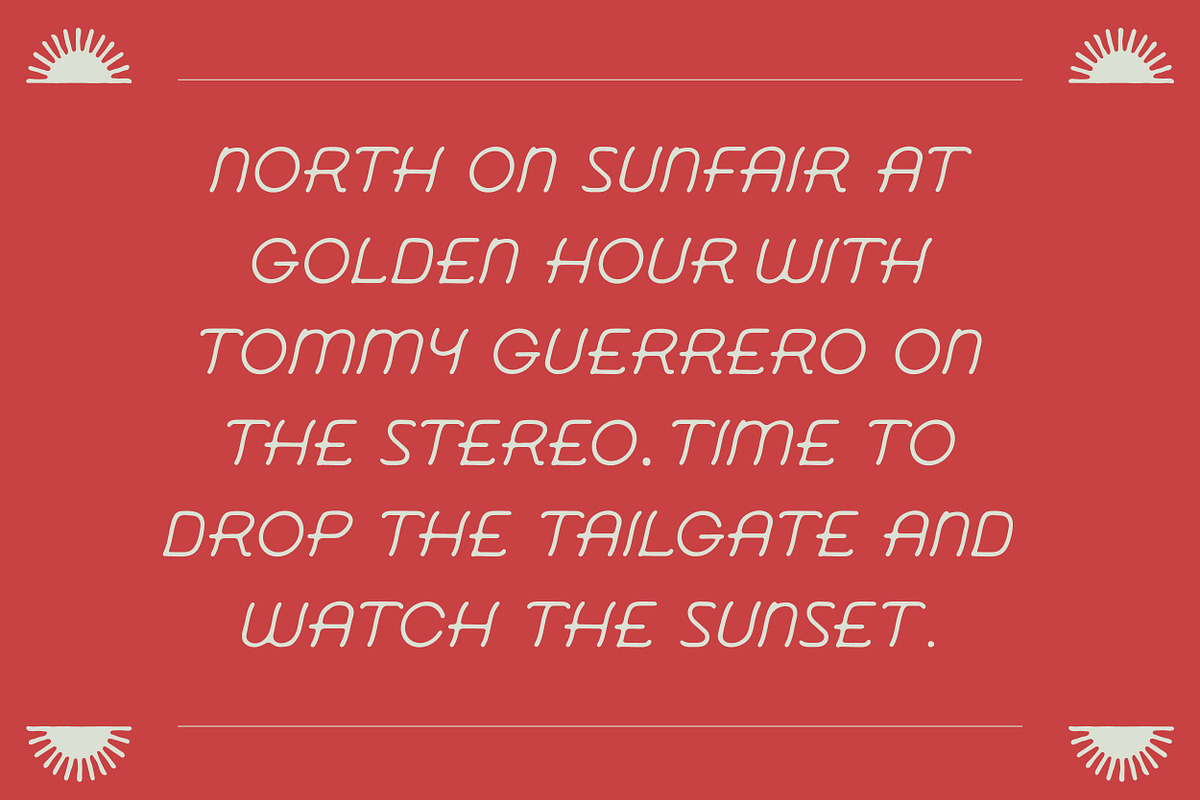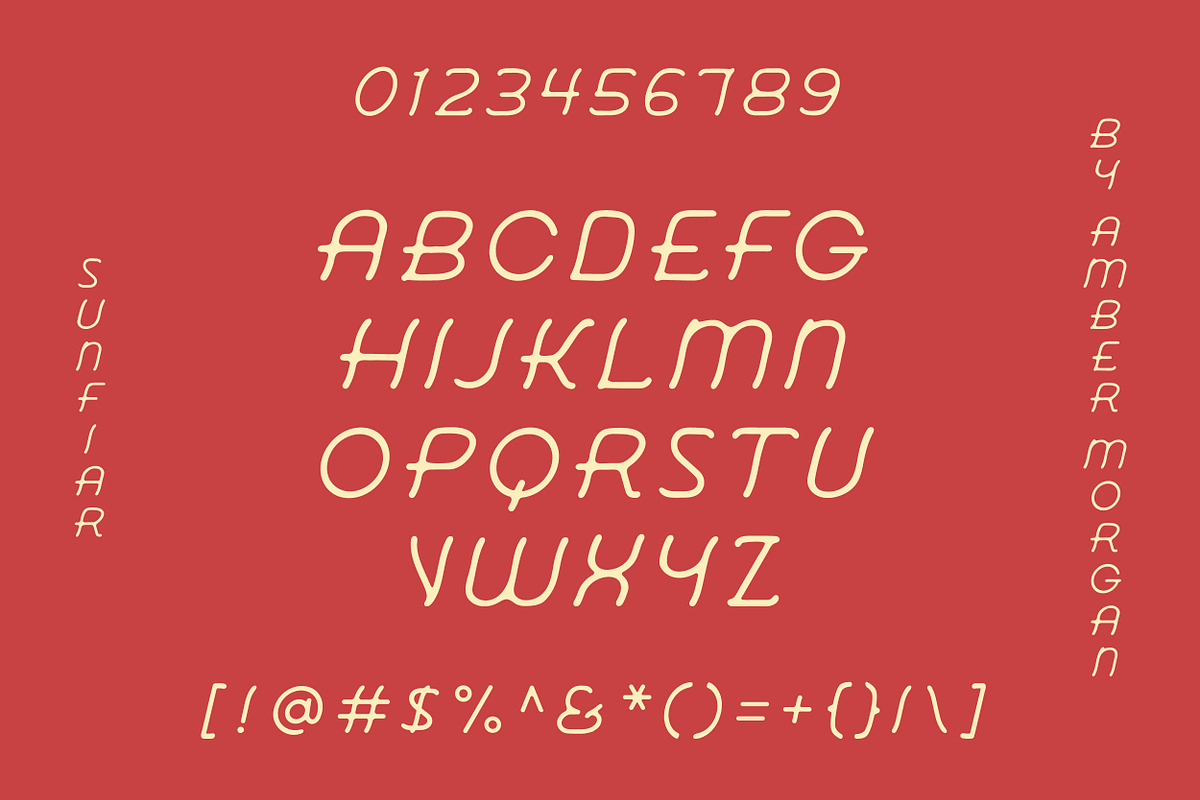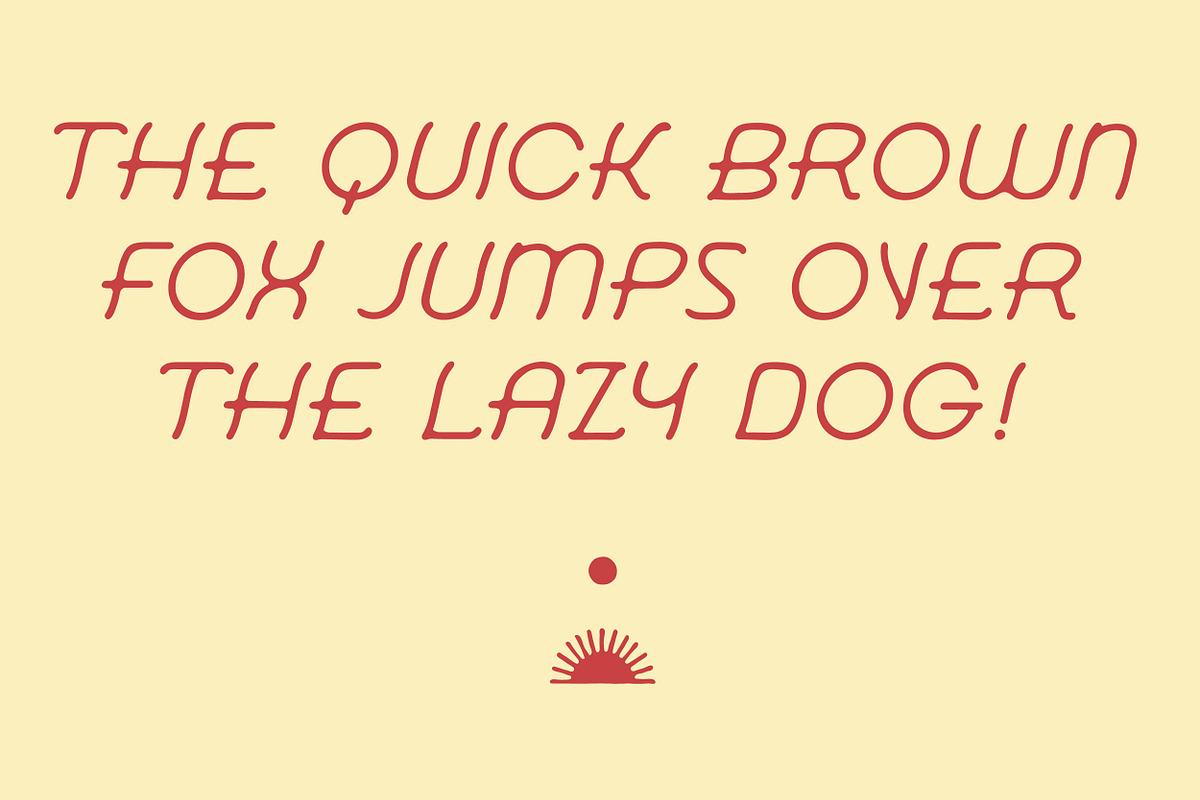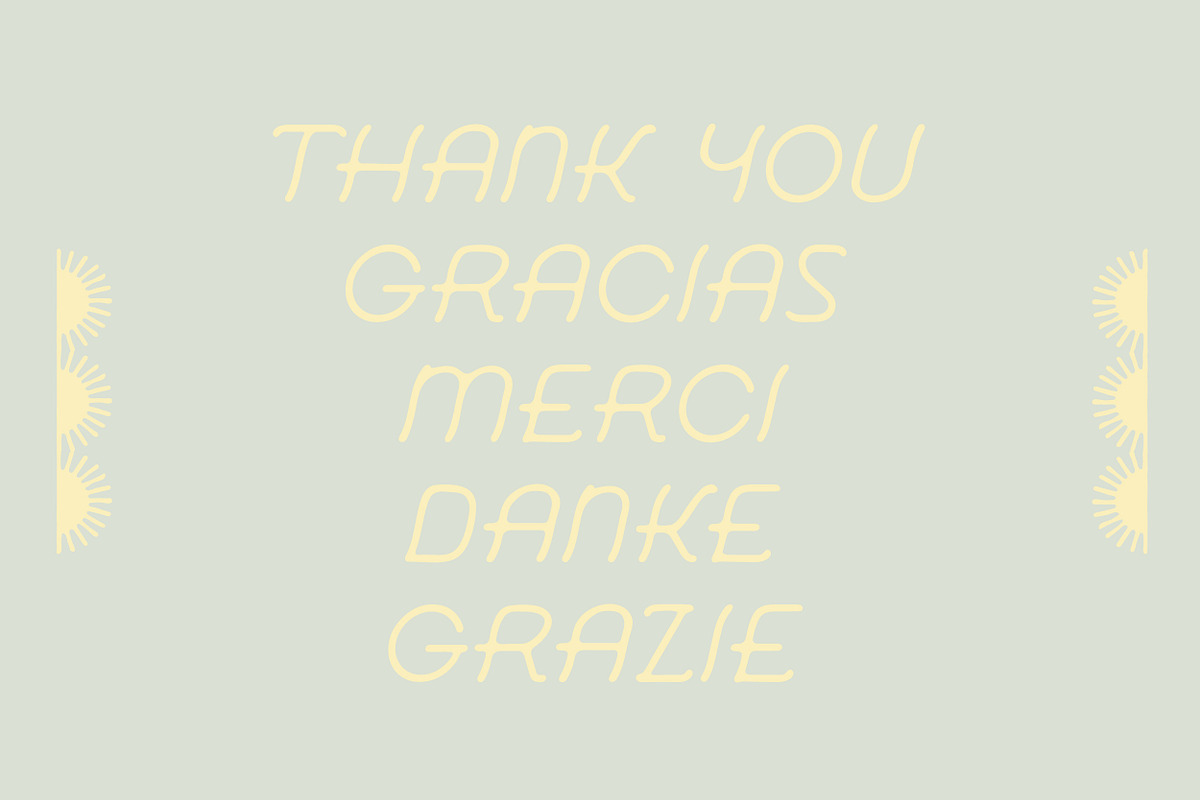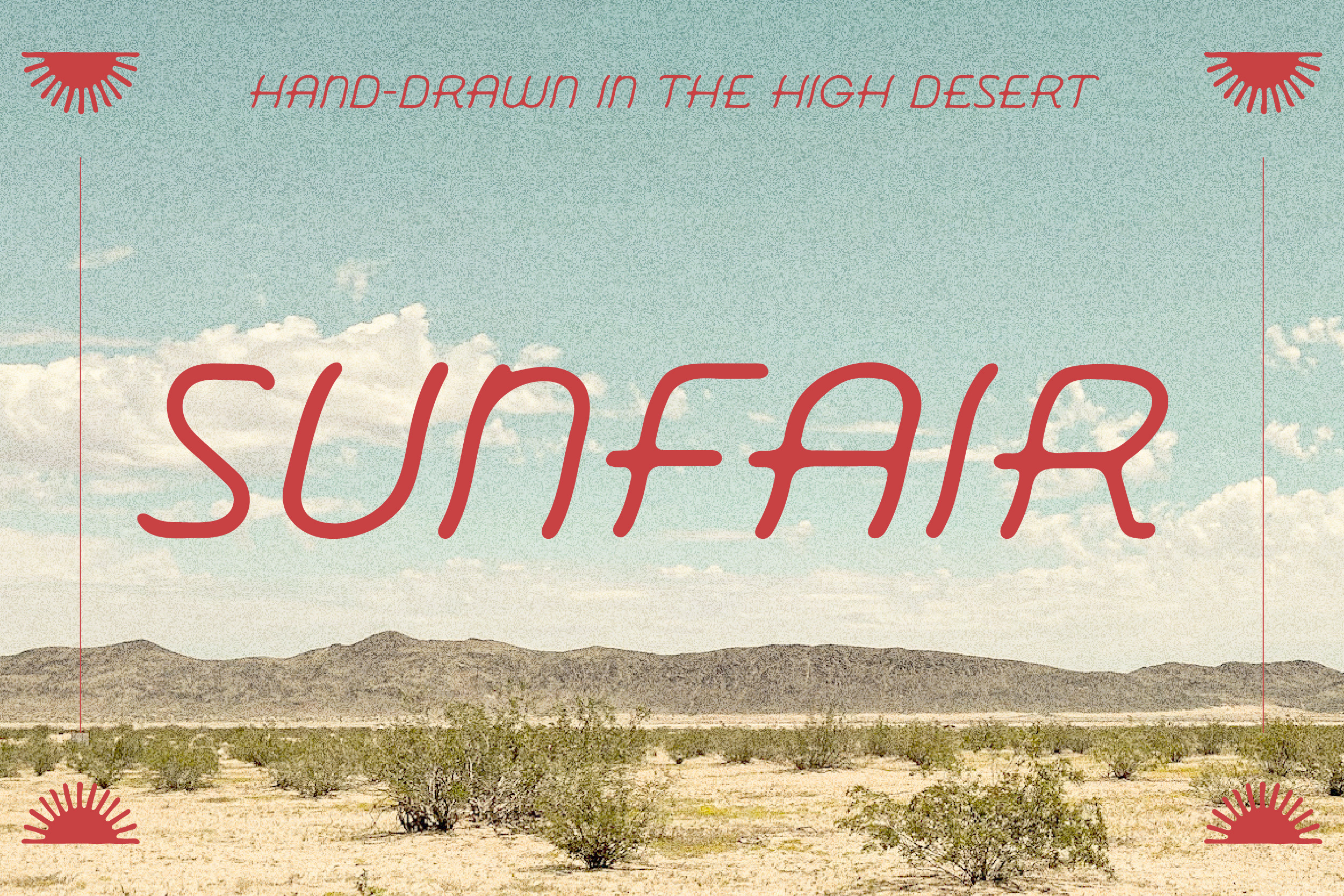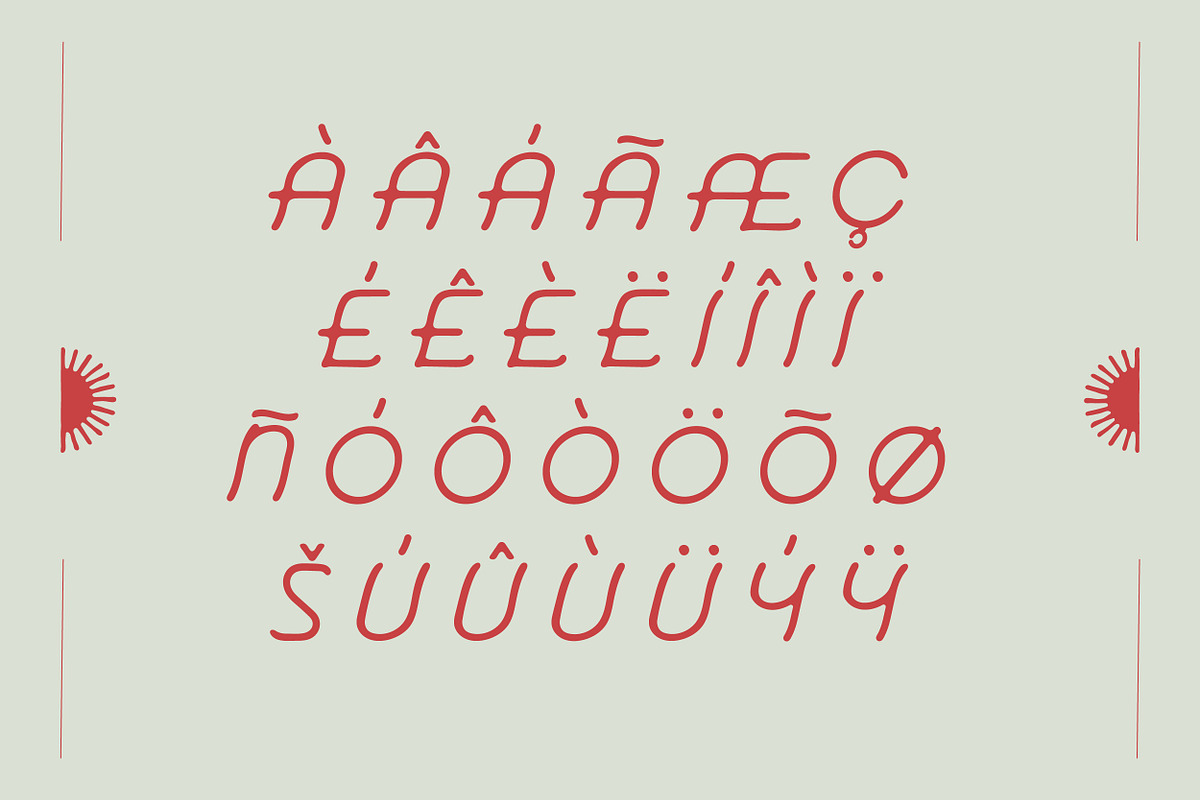
Sunfair | Slanted Sans Serif Font
Sunfair is a hand-drawn, slanted sans serif named for a stretch of road near Joshua Tree, CA. Inspired by vintage motel signs, dusty horizons, and the slow pace of the High Desert, it blends clean lines with a subtle western vibe.
Perfect for brand identity and design projects that call for a desert or retro aesthetic—typography for album covers, concert posters, merch or even wedding invitations